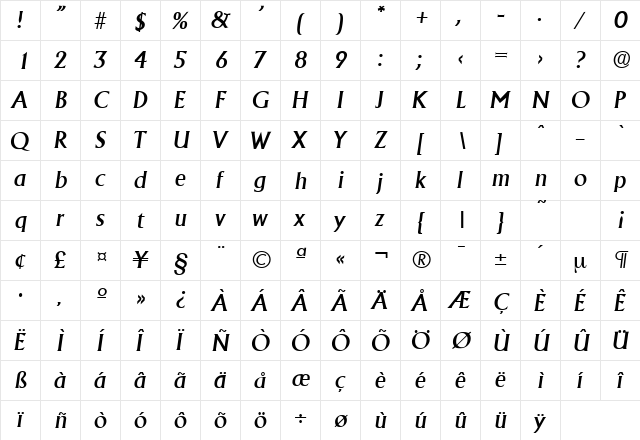
Adelon-Serial-Medium RegularItalic
Design Context for Adelon-Serial-Medium Typeface
Adelon-Serial-Medium offers clean, dependable letterforms without strong stylistic allegiance, making it a practical choice for designers who need flexibility. The dynamic lean of this cut emphasises speed and emphasis in any layout.
Pro Tip: Try Adelon-Serial-Medium for annotation and caption copy alongside an upright companion — the contrast in angle creates a dynamic but ordered typographic system.